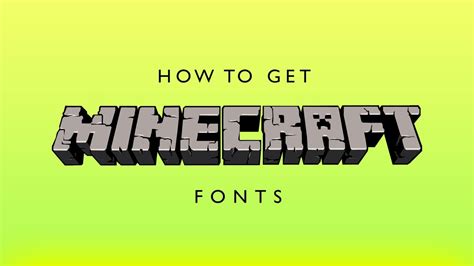
Minecrafter Font Generator. Free with high quality results. Based on the popular indie game minecraft, this font is inspired by the main game logo with.